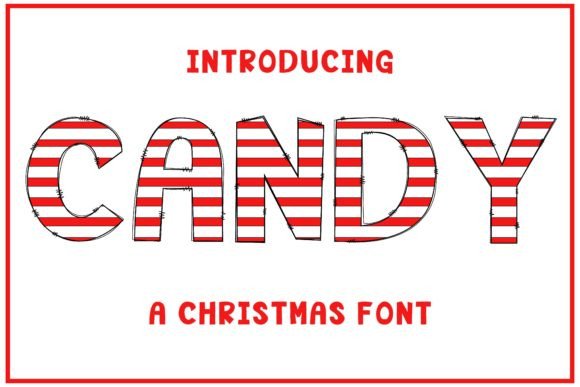
The Sweetest Font for Your Designs: A Comprehensive Guide to Candy Font
I’ll never forget the time I was working on a Christmas-themed project for a client, and I just couldn’t find the perfect font to match the festive vibe. The design needed something playful, fun, and full of holiday cheer. That’s when I stumbled upon the Candy Font, and it instantly became the star of the show! 🎄 In this article, I’ll share my experience with this amazing font, its features, and how to make the most of it in your designs.
An Honest Review of Candy Font
Candy Font is an incredibly cool color font decorated with typical Christmas candies. It’s perfect for custom designs, DIY crafts, or any creation that requires a lovely touch. Here are my thoughts on what I love about it:
• ✨ Unique and festive design: The font is filled with colorful, candy-themed decorations that instantly add a festive touch to any design.
• ✅ Versatile: Whether you’re working on a Christmas project or just want to add some fun to your design, Candy Font is an excellent choice.
Now, let’s talk about some small quirks or limitations:
The Story Behind Candy Font
Candy Font was designed with the intention of capturing the magic of Christmas and the joy of candy. The designer, a self-proclaimed candy lover, wanted to create a font that would bring a smile to people’s faces and add a touch of whimsy to their designs. And, let’s be honest, who wouldn’t love a font that’s essentially a sweet treat for your eyes? 🍬
Font Name Candy Font
Author Doodle Alphabet